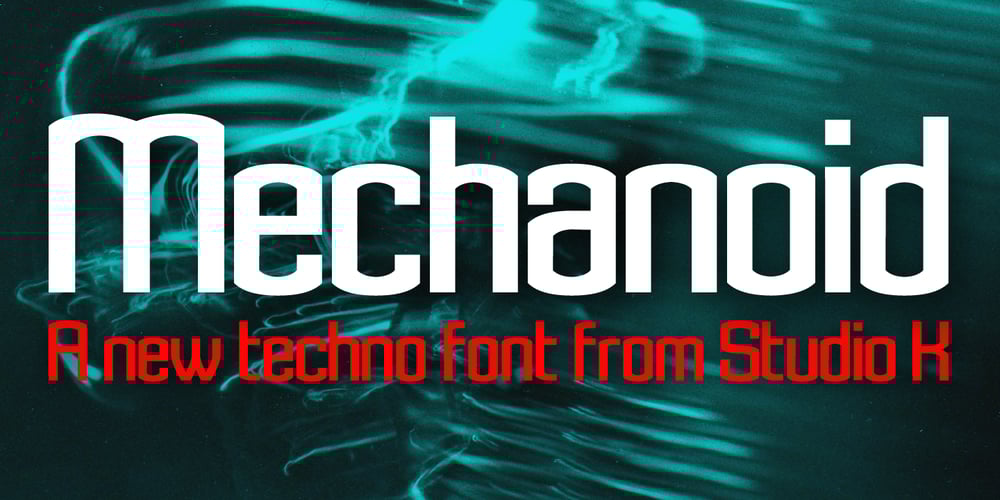
Mechanoid Font Family was designed by Keith Tricker and published by Studio K. Mechanoid contains 4 styles and family package options. Mechanoid is a machine age font: crisp, clean, bold and unadorned, yet with a distinctive character of its own. As the name suggests it is well suited to engineering or technological themes, yet versatile enough for universal applications.